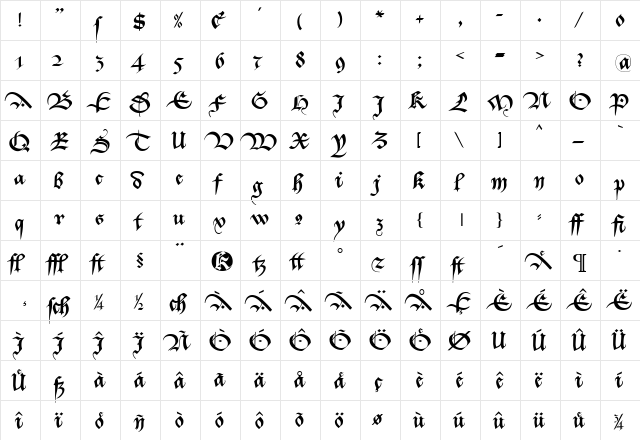
Bastarda-K Regular
Design Context for Bastarda-K Typeface
Bastarda-K is a composed and adaptable typeface that performs quietly and consistently across a wide range of design contexts.